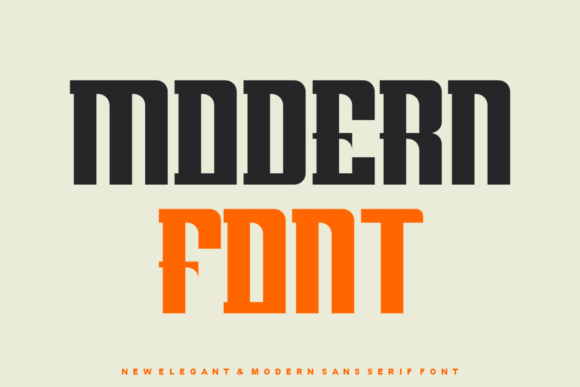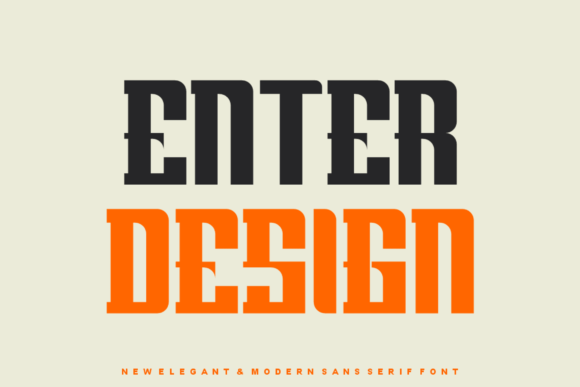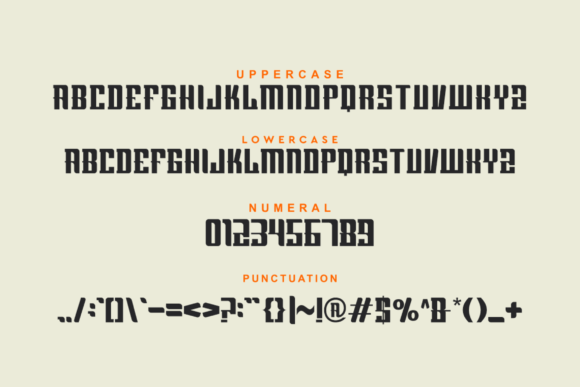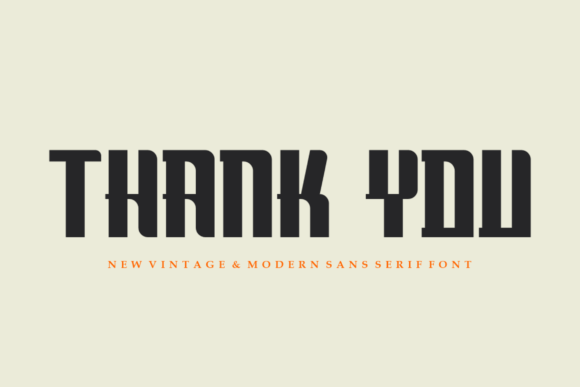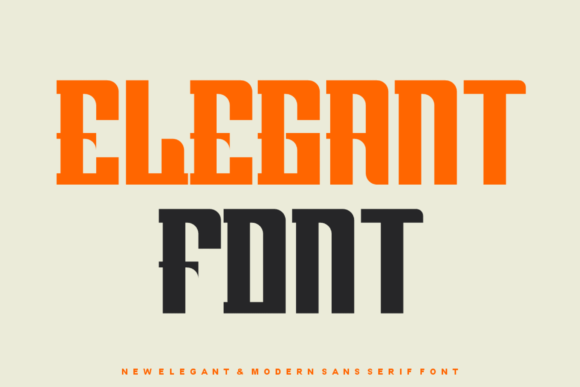
in Serif FontsKerogers FontAbout Kerogers Font 100 Views View Gallery 6 images KEROGERS FONT SPECIMENKerogers is a bold and authentic slab serif font. The font is suitable for any branding project like logo, t-shirt printing, e-sport, and many more. It is sure to look outstanding in a wide range of contexts! Kerogers Font Written by canyonadmin Leave a Reply Cancel replyYour email address will not be published. Required fields are marked *Comment *Name * Email * Website Save my name, email, and website in this browser for the next time I comment.